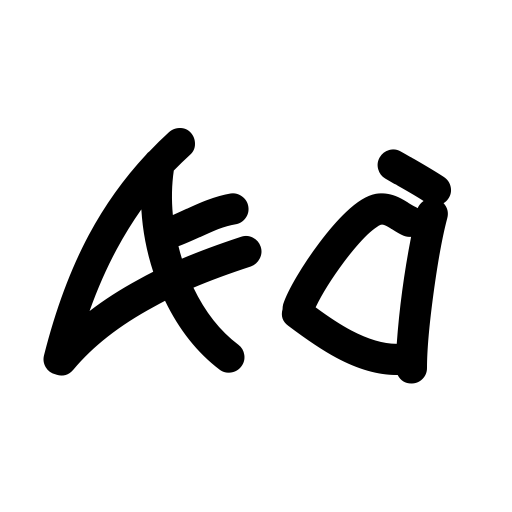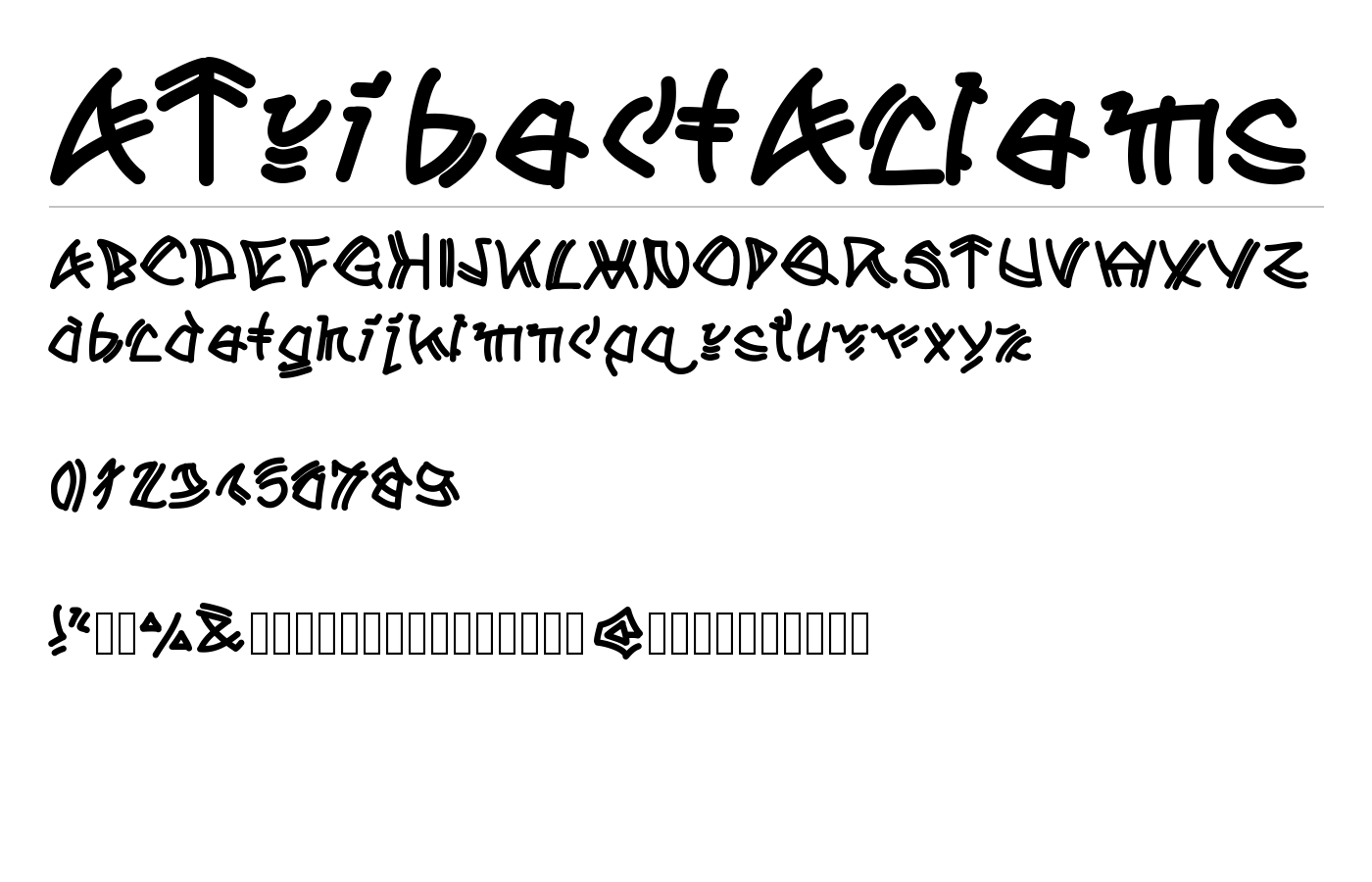
ATribeofAclems is a unique, hand-drawn display font that evokes a tribal and ancient script feel with its bold, irregular strokes and playful, artistic shapes. Its casual, decorative nature makes it perfect for creative projects that seek an unconventional and adventurous mood, such as posters, branding for edgy or cultural events, and artistic logos. This font stands out best in large sizes where its intricate details and distinct personality can truly shine.
ATribeofAclems Font